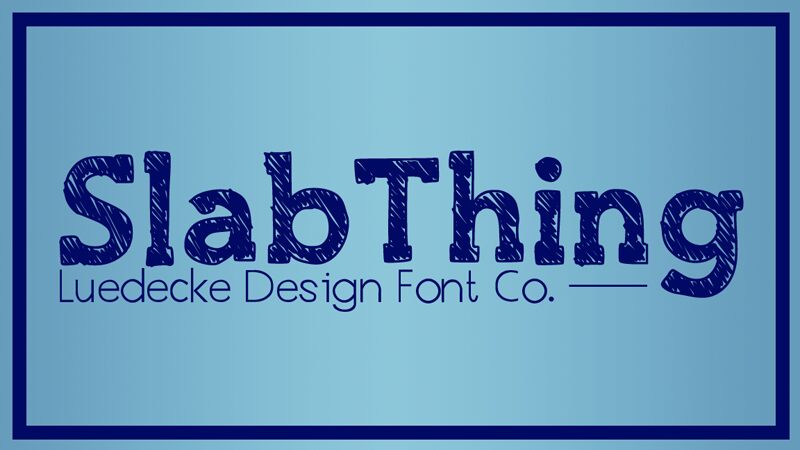
Slab Thing by LDF is a free eroded slab-serif display font with broad letters and blunt squared details. Rough outer edges keep the silhouette lively. Dense diagonal scratches fill the strokes like hurried pen hatching and lend the sturdy forms a handmade, slightly unruly finish.
A gig poster is its strongest setting, especially for garage rock, punk, or music built around a raw aesthetic. The scratched texture suits craft beer packaging and event merchandise, where lettering can feel printed, scuffed, and immediate. On a label or venue badge, the marks become part of the brand identity rather than surface distress.